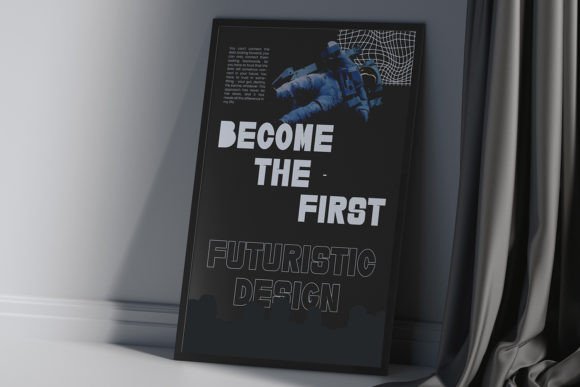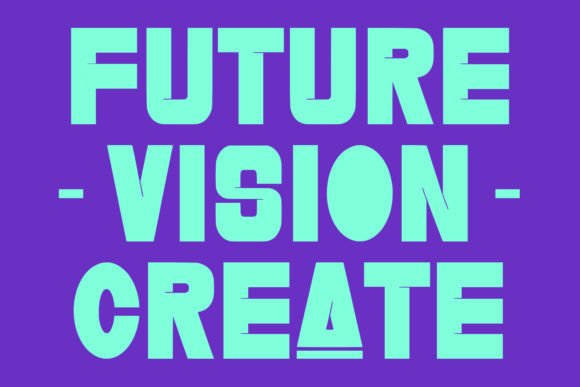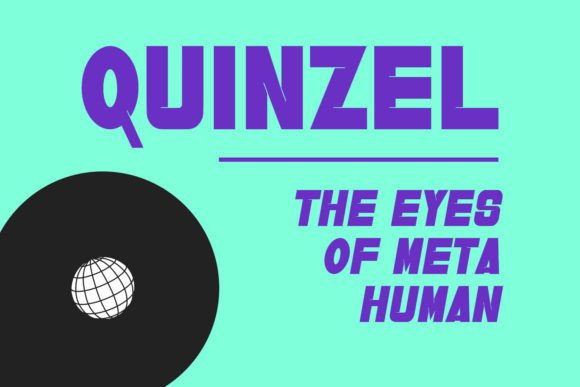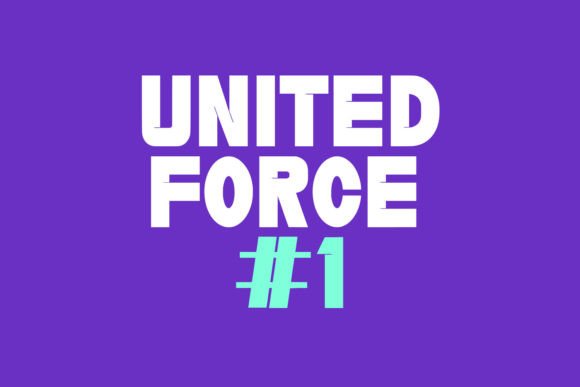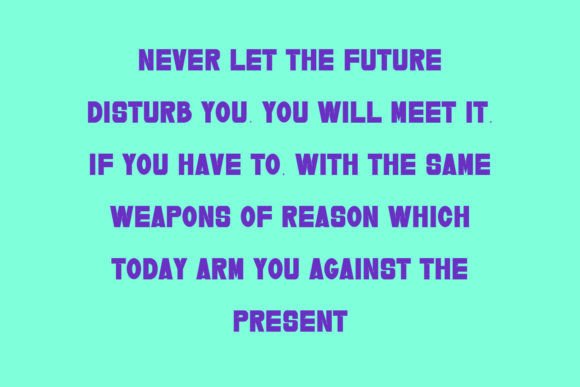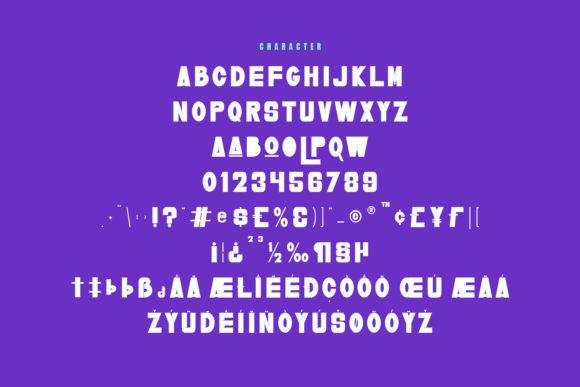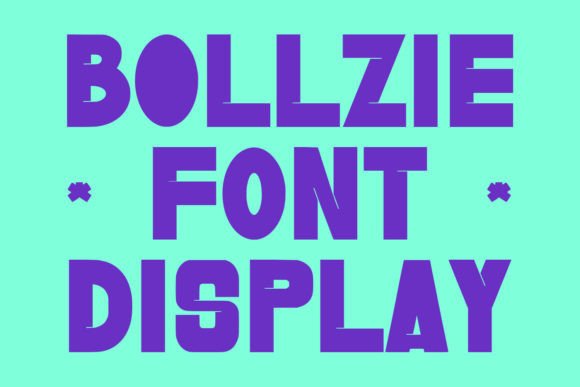
Bollzie Font: Elevate Your Designs with a Modern Sans-Serif Style
In the world of typography, fonts play a crucial role in making or breaking a design. A well-chosen font can instantly elevate your project, making it more visually appealing and engaging. If you’re a designer or crafter looking for a bold, easy-to-read display font, look no further than Bollzie. This modern sans-serif font is perfect for creating eye-catching headlines and adding a friendly touch to any project.
What is Bollzie Font?
Bollzie is a bold, clean sans-serif font designed to make a statement. Its modern look and feel make it perfect for a wide range of design applications, from posters and flyers to digital graphics and branding materials. With its simple yet striking design, Bollzie is sure to grab attention and leave a lasting impression.
Key Features of Bollzie Font
- Bold and Easy-to-Read: Bollzie’s bold design ensures that your text is always legible, even at smaller sizes.
- Clean Sans-Serif Style: The font’s clean lines and minimalist aesthetic make it perfect for modern designs.
- Modern Look: Bollzie’s contemporary design ensures that your project looks fresh and up-to-date.
- Versatile: Use Bollzie for headlines, titles, and short paragraphs to add a friendly touch to your project.
Why Choose Bollzie Font?
With so many fonts available, why choose Bollzie? Here are just a few reasons why Bollzie is a great choice for designers and crafters:
- Uniqueness: Bollzie’s bold design sets it apart from more traditional fonts, making it perfect for designers looking to create something unique.
- Legibility: The font’s clean lines and simple design ensure that your text is always easy to read.
- Flexibility: Use Bollzie for a wide range of design applications, from print materials to digital graphics.
- Friendliness: Bollzie’s modern design gives your project a friendly, approachable feel that’s perfect for brands looking to connect with their audience.
How to Use Bollzie Font in Your Designs
Using Bollzie in your designs is easy. Here are a few tips to get you started:
- Headlines and Titles: Use Bollzie for headlines and titles to add a bold, eye-catching touch to your design.
- Short Paragraphs: Bollzie is also great for short paragraphs, adding a friendly touch to your text.
- Branding Materials: Use Bollzie for branding materials, such as logos and business cards, to create a modern and memorable brand identity.
- Digital Graphics: Bollzie is perfect for digital graphics, such as social media posts and website headers.
Tips for Pairing Bollzie with Other Fonts
Pairing Bollzie with other fonts can create a visually appealing and harmonious design. Here are a few tips for pairing Bollzie with other fonts:
- Contrasting Fonts: Pair Bollzie with a contrasting font, such as a serif font, to create visual interest.
- Similar Fonts: Pair Bollzie with a similar font, such as another sans-serif font, to create a cohesive look.
- Experiment with Font Sizes: Experiment with different font sizes to create a visually appealing hierarchy.
Bollzie is a bold, easy-to-read display font that’s perfect for designers and crafters looking to add a modern touch to their projects. With its clean sans-serif style and friendly feel, Bollzie is sure to elevate your designs and leave a lasting impression. Whether you’re creating headlines, titles, or short paragraphs, Bollzie is a great choice for any design application.